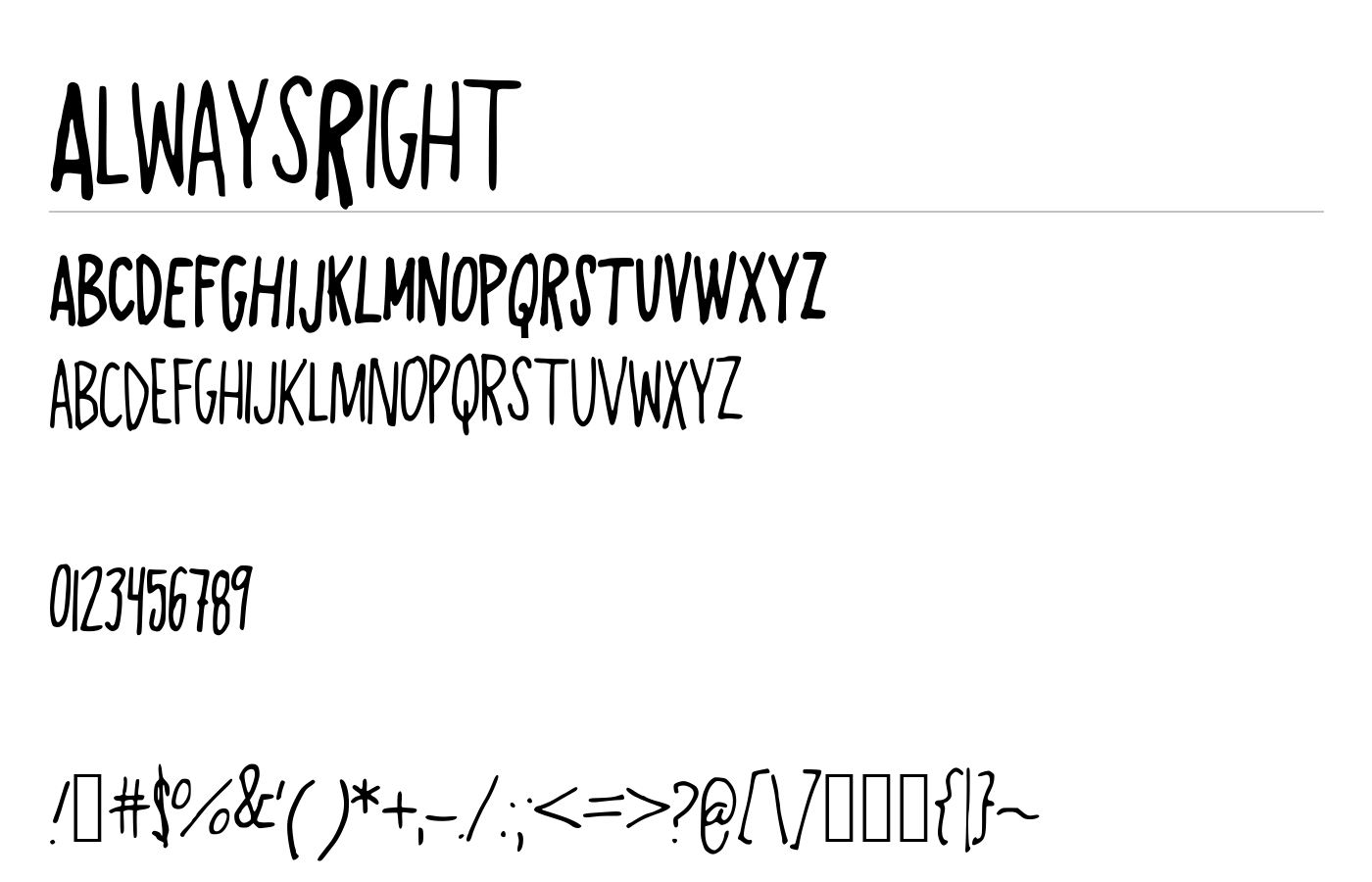
AlwaysRight is a playful and quirky handwritten sans serif font with a casual, uneven stroke style that gives it a lively and friendly personality. Its tall, narrow letterforms combined with varying line weights create an energetic and informal feel, making it ideal for creative projects, informal branding, and fun headlines. This font works well for children’s designs, comic-style text, and any context where a relaxed, approachable tone is desired.
AlwaysRight Font
About AlwaysRight Font